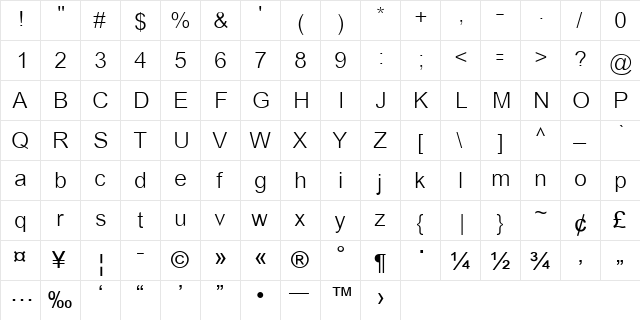
Alice1 Unicode Regular
| Designer | Ngakham Southichack/Alice Computer/John Durdin |
Design Context for Alice1 Unicode Typeface
Alice1 Unicode uses fixed-width spacing throughout, giving it the structured, systematic character associated with coding environments and technical documentation.
Pro Tip: Use Alice1 Unicode with slightly increased line-height for extended reading — fixed-width spacing can feel dense in longer passages without extra breathing room.